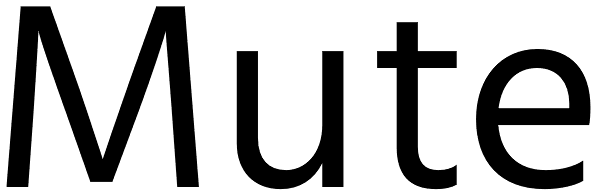
Mute
Mute is a humanist sans typeface family developed for User interface (UI) designs. Its letters have low stroke-contrast and terminals that end on the horizontal or the vertical, making its apertures open and the counter forms between its characters...